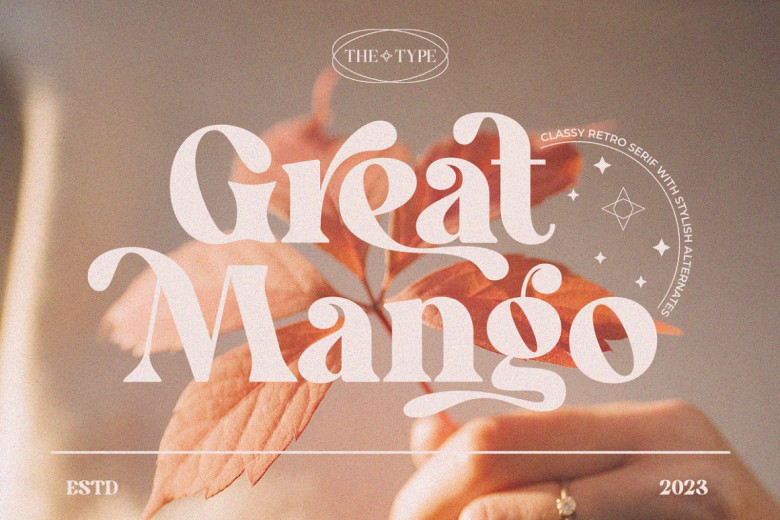
Great Mango Font
Great Mango is a stylish serif font inspired by fashionable and chic lifestyle. The font features traditional (conservative) serif characters that work well for text, as well as more expressive, playful and contemporary alternatives and ligatures to give your work its own distinct identity. Play with it to find something distinctively yours!
Great Mango Serif Font